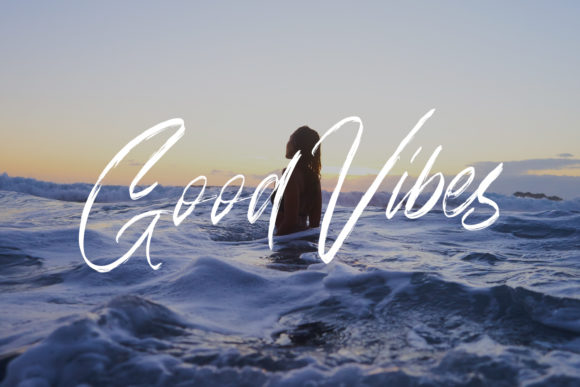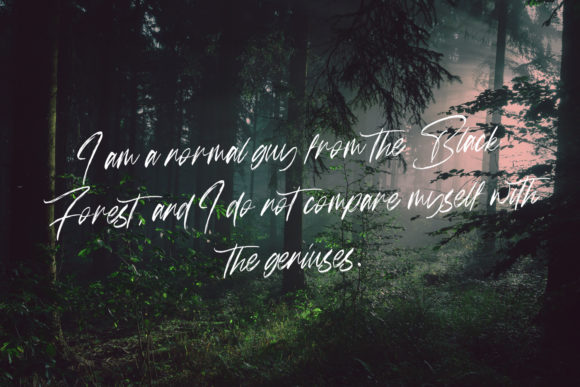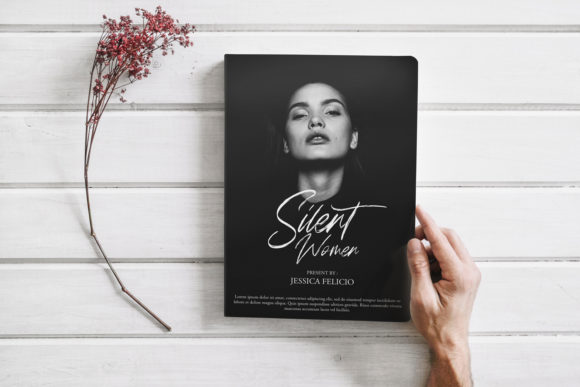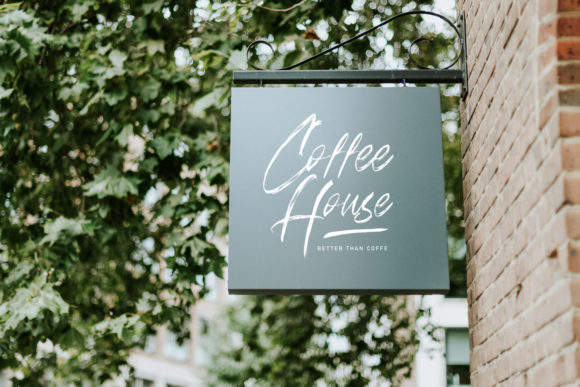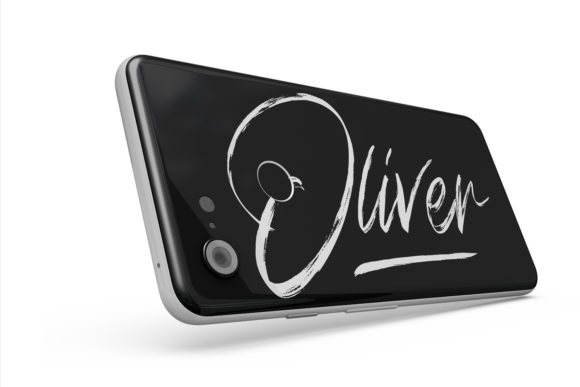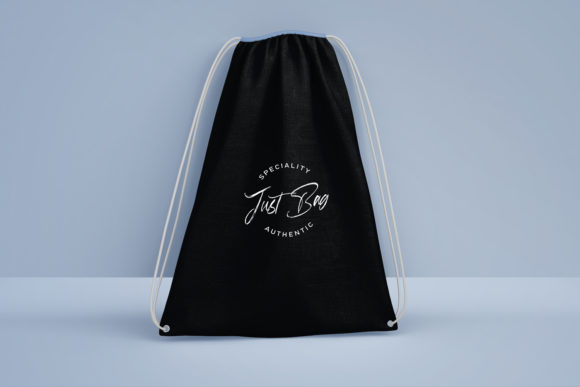
Introduction to Followers Font
Have you ever been working on a creative project, and the perfect font just eludes you? The words on the page feel flat, and you can’t quite capture the essence of your vision. This is where the magic of the Followers Font comes in – a modern brush font that effortlessly blends classy calligraphic influences with a fresh, contemporary feel.
With its versatility, the Followers Font is the ultimate design resource for any creative project. Whether you’re crafting letterheads, titles, or stationery, this high-quality font is sure to elevate your work. The best part? It’s available for free download, making it an accessible addition to your design toolkit.
Key Features of Followers Font
- Unique, modern font style suitable for a wide range of creative applications.
- Designed to be highly legible, even at small font sizes, making it perfect for titles and headings.
- Supports various languages, including English, Spanish, French, and more, making it a versatile design tool.
Honest Review: Followers Font
I recently came across the Followers Font, a popular free download that’s been making waves in the design community. As a designer myself, I was curious to see if it lived up to the hype.
- High quality: The font is crisp and clean, making it perfect for a variety of creative projects.
- Easy to use: With a transparent background, it’s simple to customize and integrate into your designs.
- ⚠️ Limited styles: While the font is great for titles and headings, it’s not as versatile for body text.
- ⚠️ May not be suitable for complex designs: Due to its simplicity, it may not be the best choice for intricate or layered designs.
Overall, I’m impressed with the Followers Font. It’s a great design resource that’s perfect for simple, creative projects. While it has its limitations, it’s definitely worth checking out – especially if you’re on a budget.
Tips for Getting the Most Out of Followers Font
Use Followers Font in conjunction with other design elements to create a visually appealing design. Experiment with different font sizes and styles to add emphasis to your text.
The Followers Font is suitable for a variety of creative projects, including social media graphics, blog posts, and presentations. It’s also a great resource for designers who want to add a unique touch to their designs.
The Great Vibes Font is a high-quality, elegant script font that’s perfect for creative projects requiring a touch of sophistication. Its transparent background and versatile design make it suitable for various applications, including logos, signage, and packaging. When to use: for projects requiring a classic yet modern feel. Comparison: Great Vibes Font is more elegant and sophisticated than Followers Font, with a wider range of uses.
The Playfair Display Font is an exquisite, high-end font ideal for creative projects that demand luxury and sophistication. Its high-quality design and transparent background make it perfect for applications such as magazine headlines, book titles, and branding materials. When to use: for projects requiring an air of luxury and refinement. Comparison: Playfair Display Font is more formal and elegant than Followers Font, with a more exclusive feel.
The Lato Font is a clean, modern sans-serif font that’s perfect for creative projects requiring a professional and approachable feel. Its free download and high-quality design make it an excellent choice for various applications, including websites, apps, and marketing materials. When to use: for projects requiring a clean and modern aesthetic. Comparison: Lato Font is more minimalist and modern than Followers Font, with a wider range of uses.